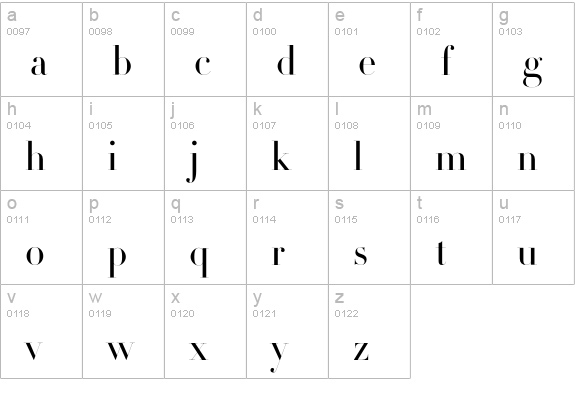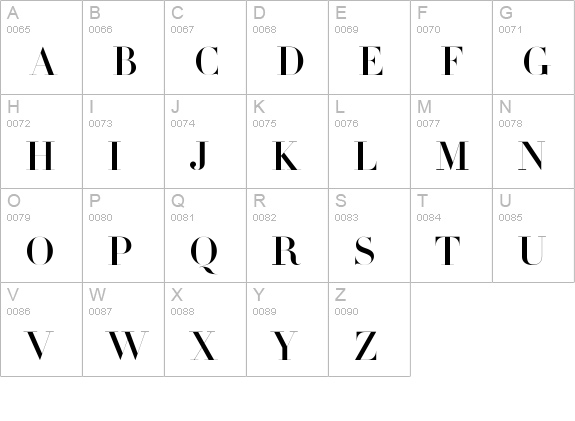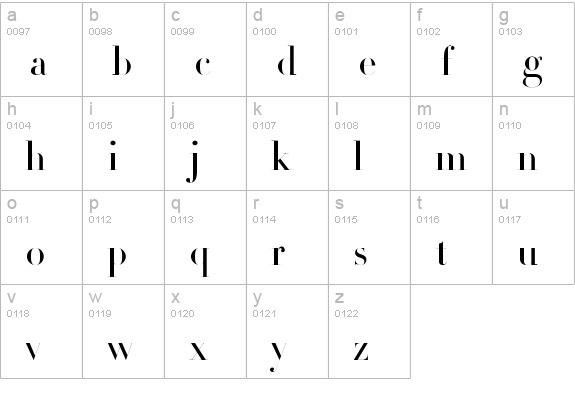
Didot-HTF-M96-Medium is a balanced, medium-weight variant in the Didot typeface family \xE2\x80\x94 well suited to sub-headlines, navigation, and balanced editorial work.
The Didot-HTF-M96-Medium font is a modern and elegant typeface that exudes sophistication and style. With its clean lines and sharp serifs, this font is perfect for creating a timeless and refined look in various design projects. What sets Didot-HTF-M96-Medium apart is its versatility, making it suitable for a wide range of applications, from editorial design to branding and packaging. Its medium weight strikes a perfect balance between readability and visual impact, making it ideal for headlines, body text, and everything in between. Best of all, Didot-HTF-M96-Medium is freely available for download at FontsMarket.com, allowing designers and creatives to access this premium font at no cost. Whether you're working on a personal project or a client's design, this font is sure to elevate your work with its classic and sophisticated aesthetic. Upgrade your typography game today with Didot-HTF-M96-Medium font.